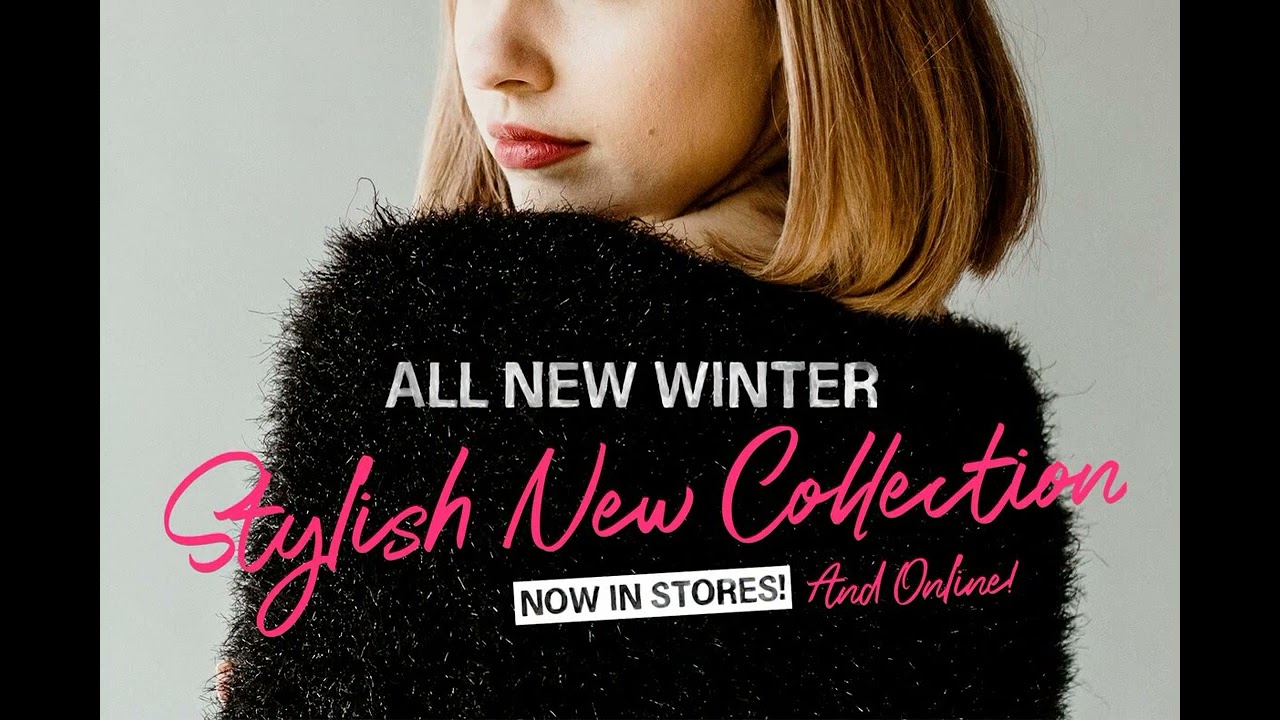
Buckle Up Buttercup Font Youworkforthem
Buckle Up Buttercup Font Youworkforthem Introducing the all new buckle up buttercup casual marker font! a highly versatile classic marker font, designed to look as close as possible to natural handwriting by keeping the subtle imperfections on the edges, not polished yet gives a statement look. Download buckle up buttercup font ywft.us 2a6417654 save 10% off you first font download at youworkforthem with the coupon code: mftube10 un.
Buckle Up Buttercup Font Youworkforthem Introducing the all new buckle up buttercup casual marker font! a highly versatile classic marker font, designed to look as close as possible to natural handwriting by keeping the subtle imperfections on the edges, not polished yet gives a statement look. A cursive, handwritten font with a fluid and elegant style. this font features a flowing, cursive style with a handwritten appearance. the letters are connected, giving it a natural, fluid look. it has a casual yet elegant feel, suitable for personal and creative projects. Discover the all new buckle up buttercup casual marker font, a versatile classic with natural handwriting imperfections, perfect for magazine headlines, h. Buckle up buttercup font search results,fontke for you to share buckle up buttercup resources,provide font download,font upload,font identification,font conversion,font preview,font generation,font design sample,font information and other services.
Buckle Up Buttercup Font Youworkforthem Discover the all new buckle up buttercup casual marker font, a versatile classic with natural handwriting imperfections, perfect for magazine headlines, h. Buckle up buttercup font search results,fontke for you to share buckle up buttercup resources,provide font download,font upload,font identification,font conversion,font preview,font generation,font design sample,font information and other services. 'find my font' is an easy to use application for identifying fonts in digital images. it identifies over 1 million fonts!. Introducing the all new buckle up buttercup casual marker font! a highly versatile classic marker font, designed to look as close as possible to natural handwriting by keeping the subtle imperfections on the edges, not polished yet gives a statement look. not sure how to get started?. Common styles include sans serif and serif fonts with neutral, straightforward designs that maintain clarity at various sizes. these fonts are frequently used in online articles, content management systems, and editorial layouts where consistent readability is essential. Introducing the all new buckle up buttercup casual marker font! a highly versatile classic marker font, designed to look as close as possible to natural handwriting by keeping the subtle imperfections on the edges, not polished yet gives a statement look.